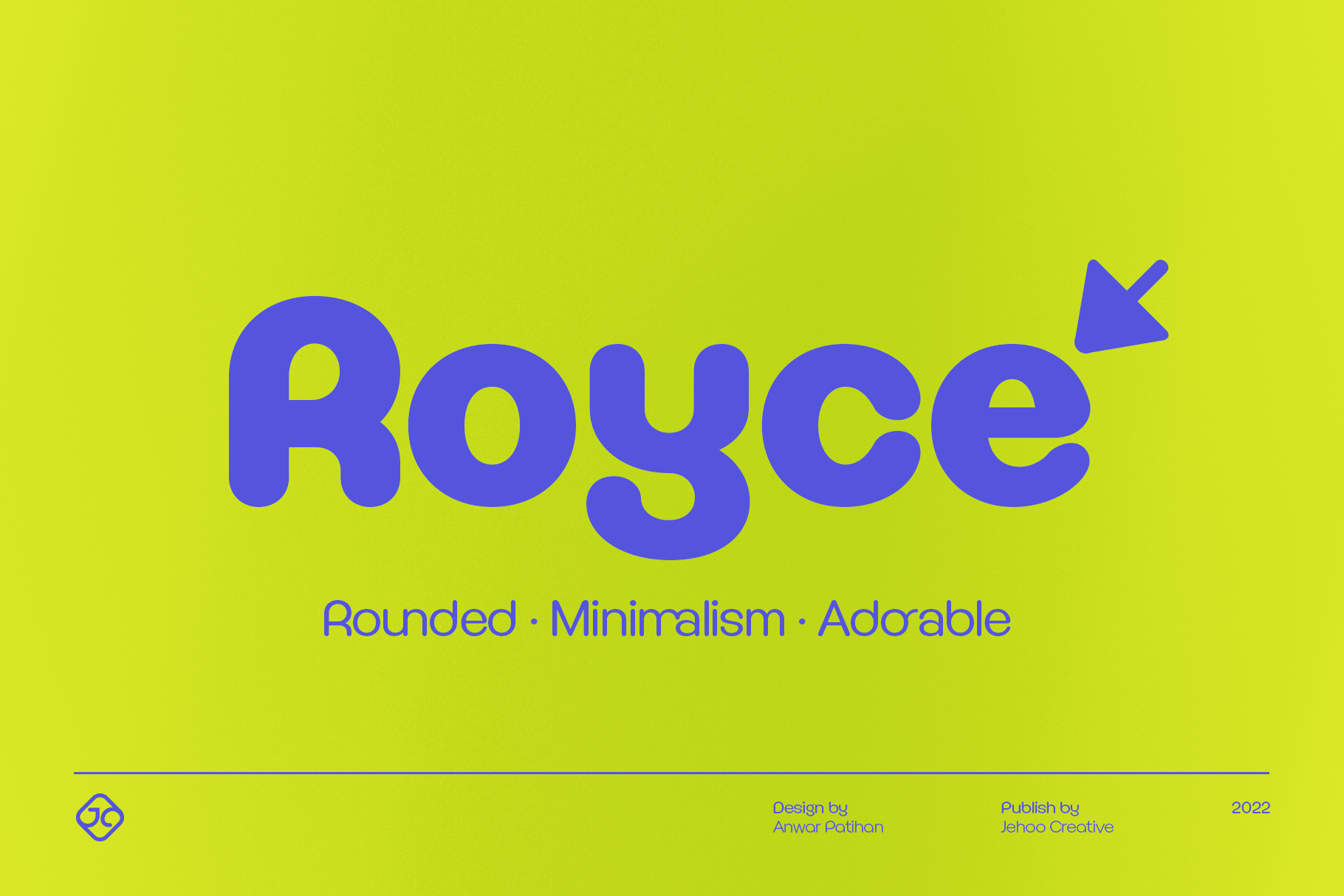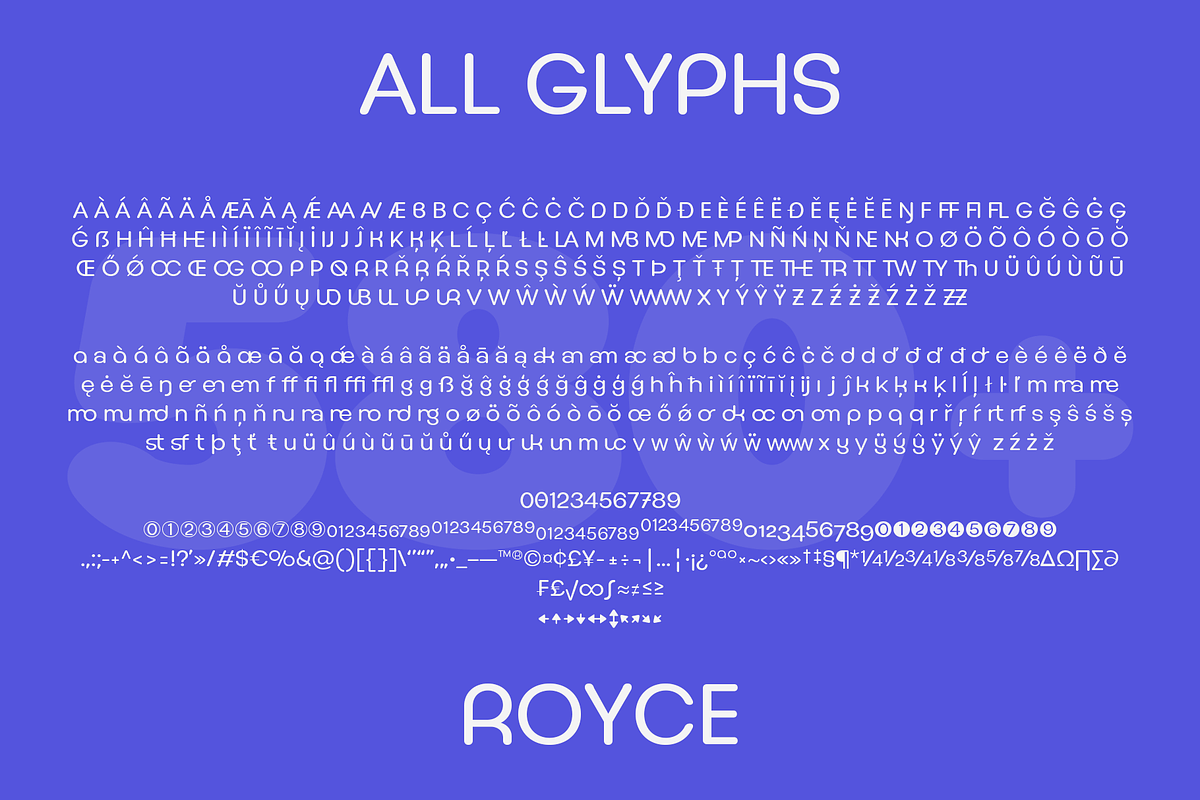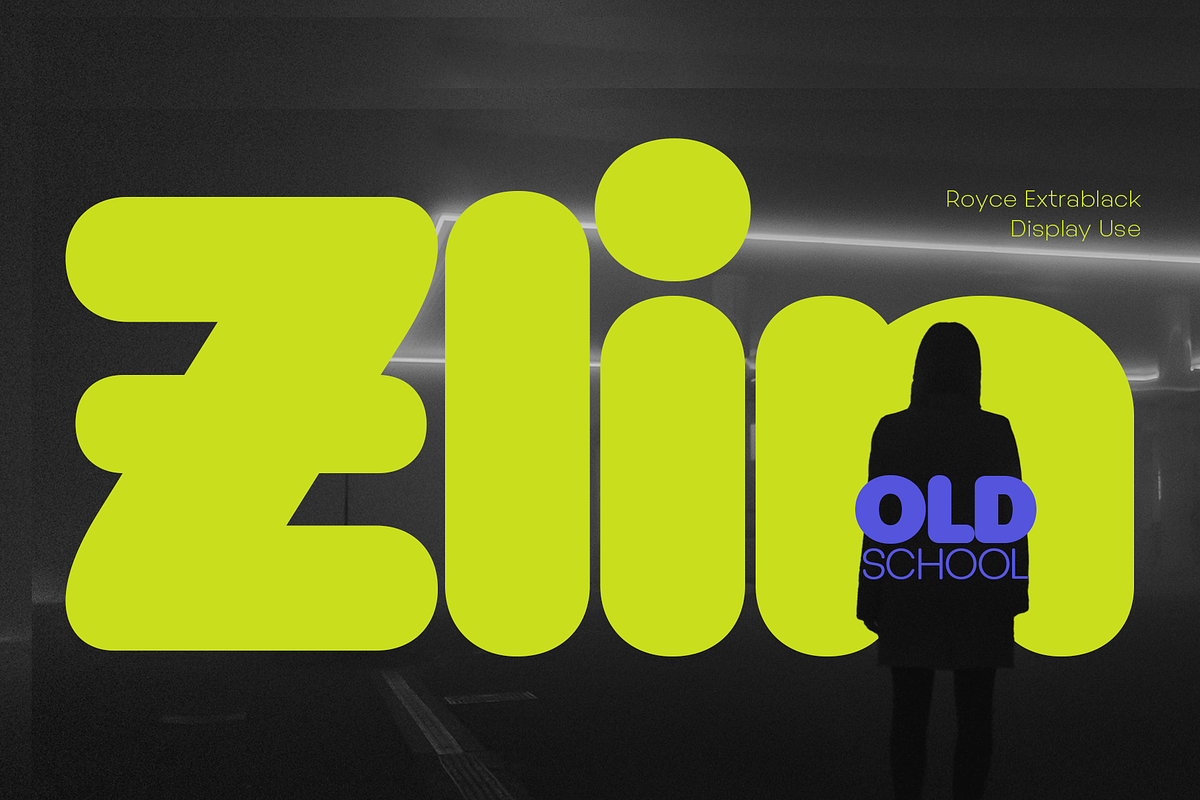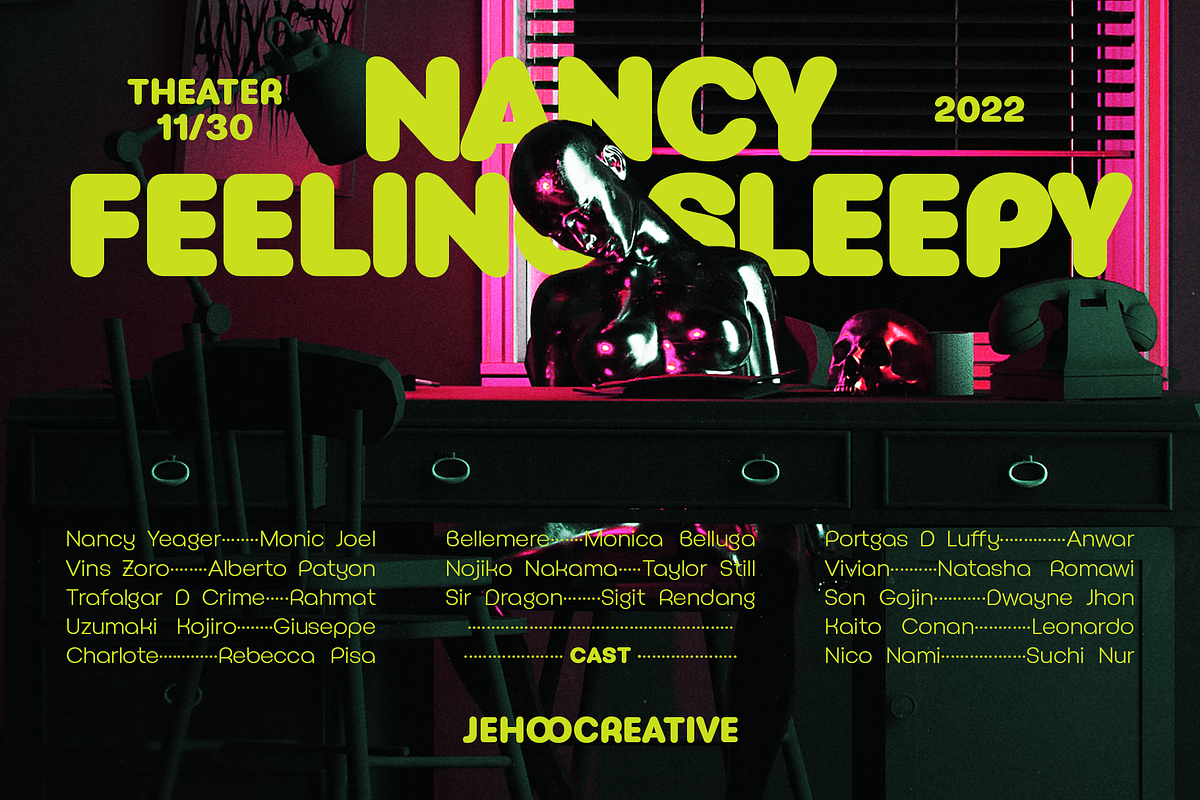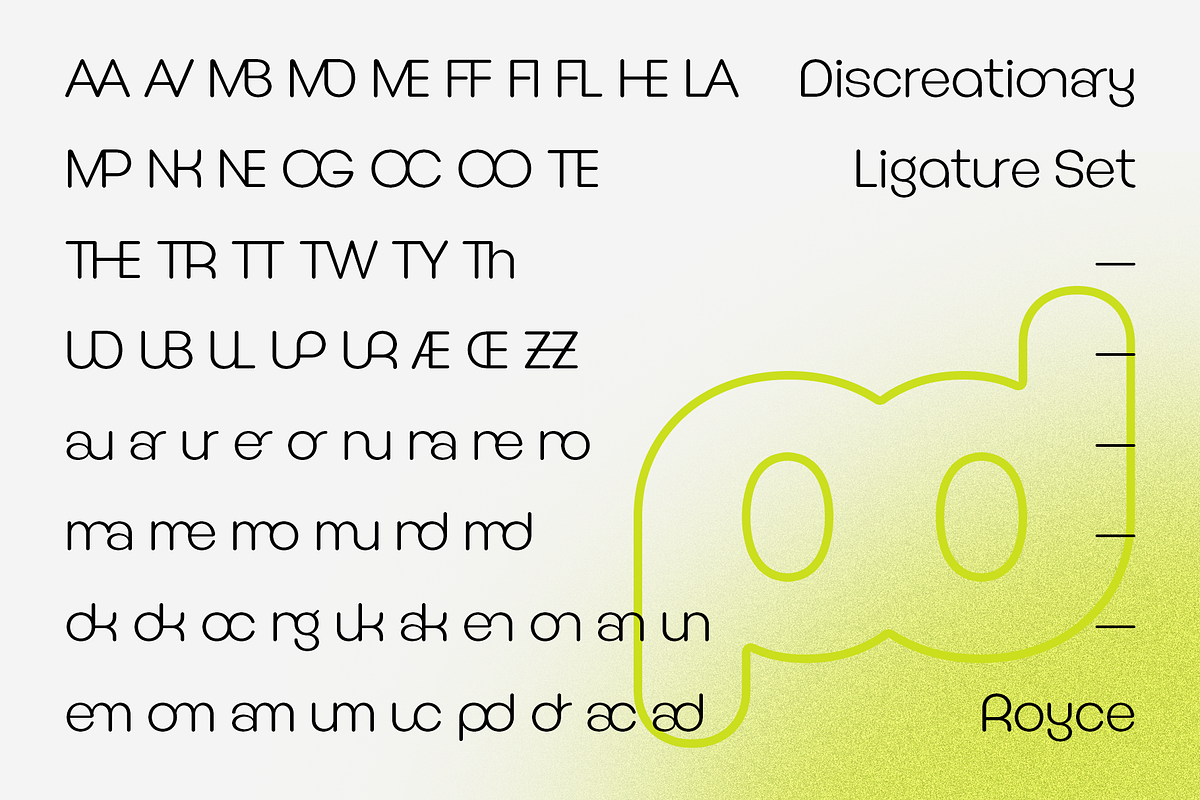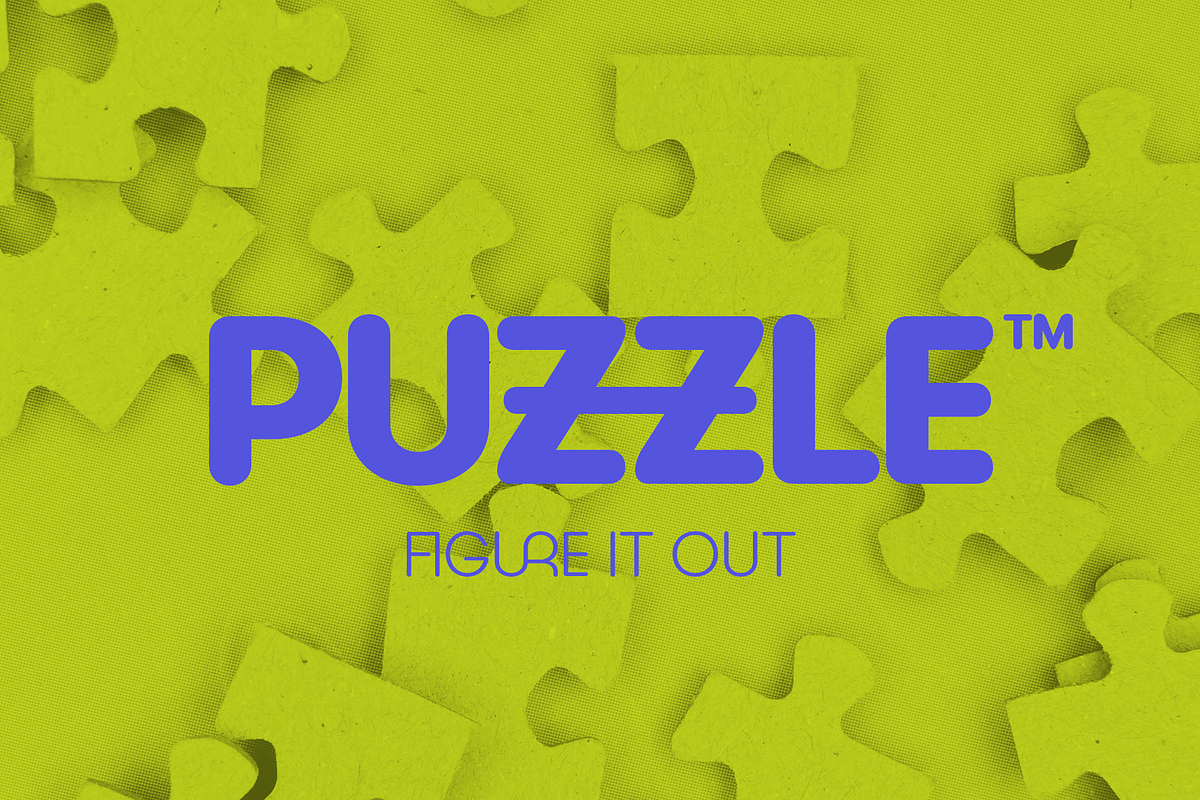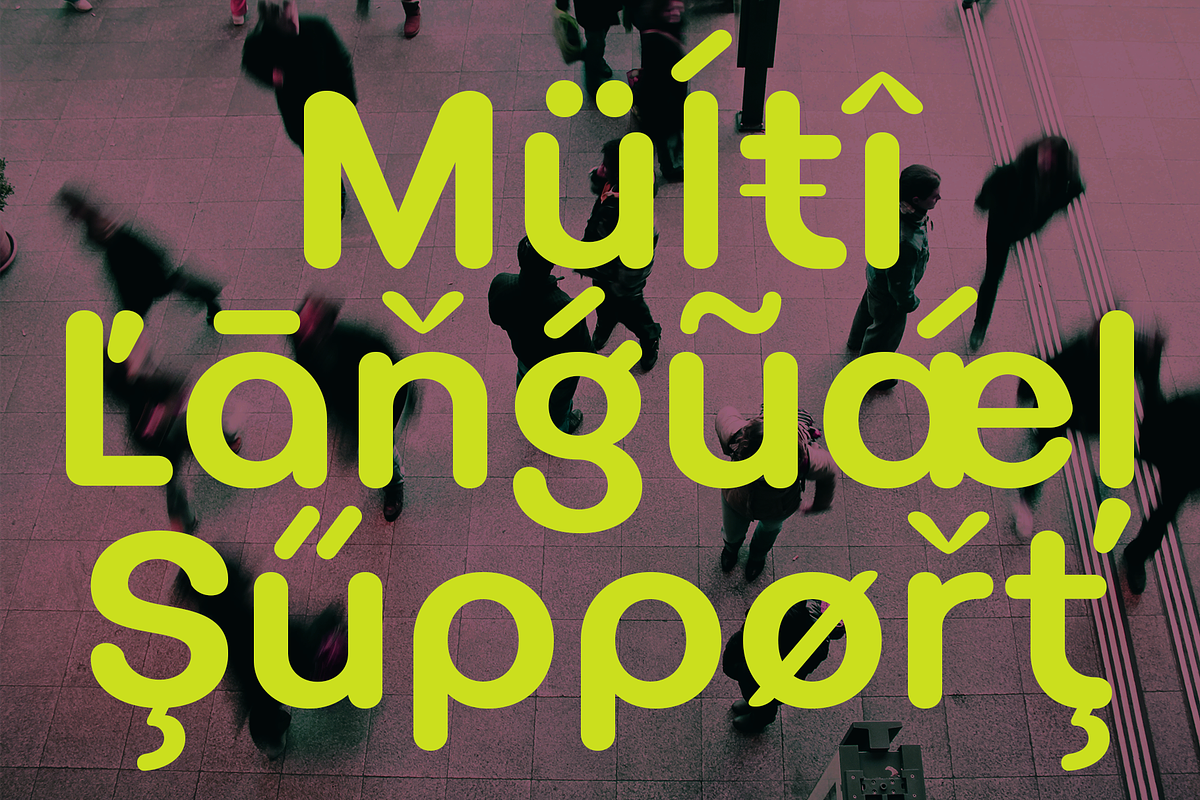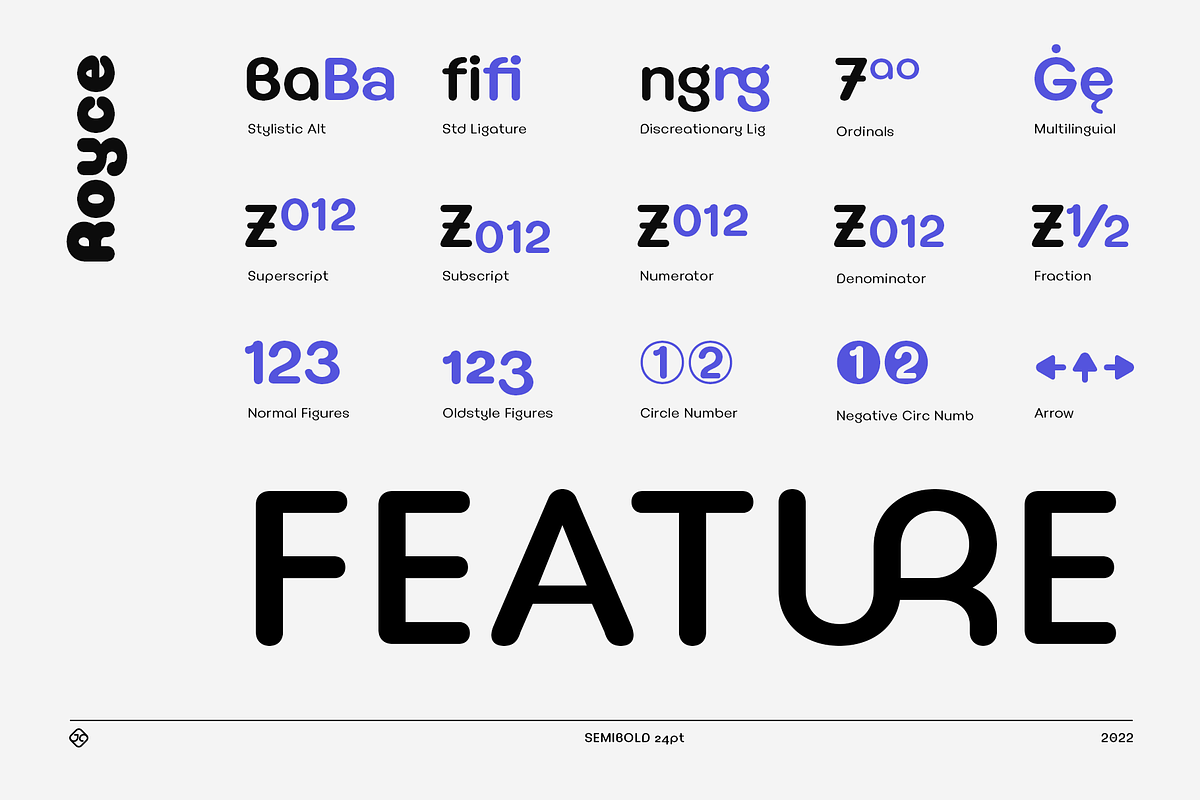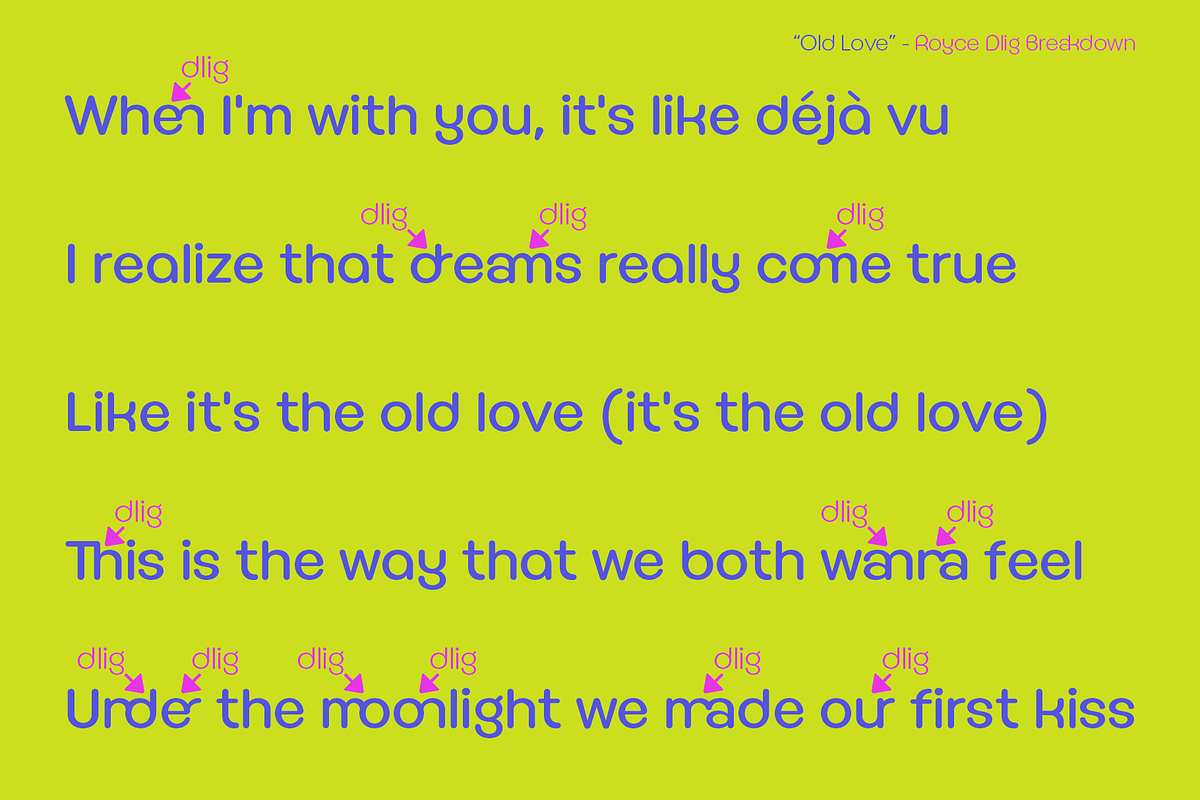
Royce Cute Family Fonts
Royce is a cute and minimalist designed font family with rounded edges on each character to make a fun and modern impression on your designs. It is very easy to combine this font with other types because it comes with 10 complete weights ranging from thin to extrablack, with a modern impression Royce has many useful features for example Alternate which is more formal in feel and Discretionary Ligature which is very eye-catching so it is ready to be used for various kinds design types such as displays, titles, body text, magazines, cover art, social media, logos, web Ui, clothing, posters, and others.
Royce also has multilingual support.
- aalt
- dlig
- dnom
- frac
- kern
- ss01
- onum